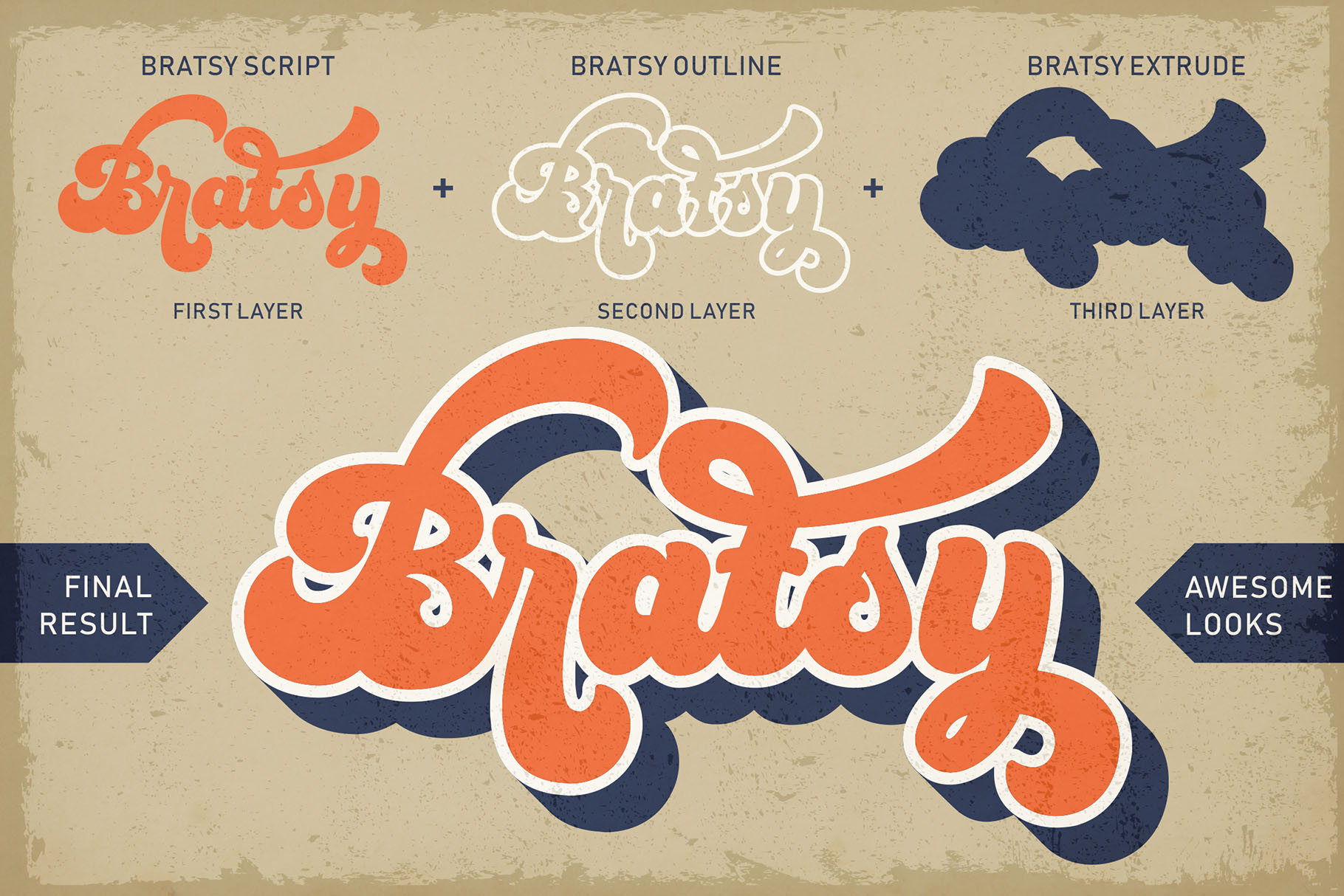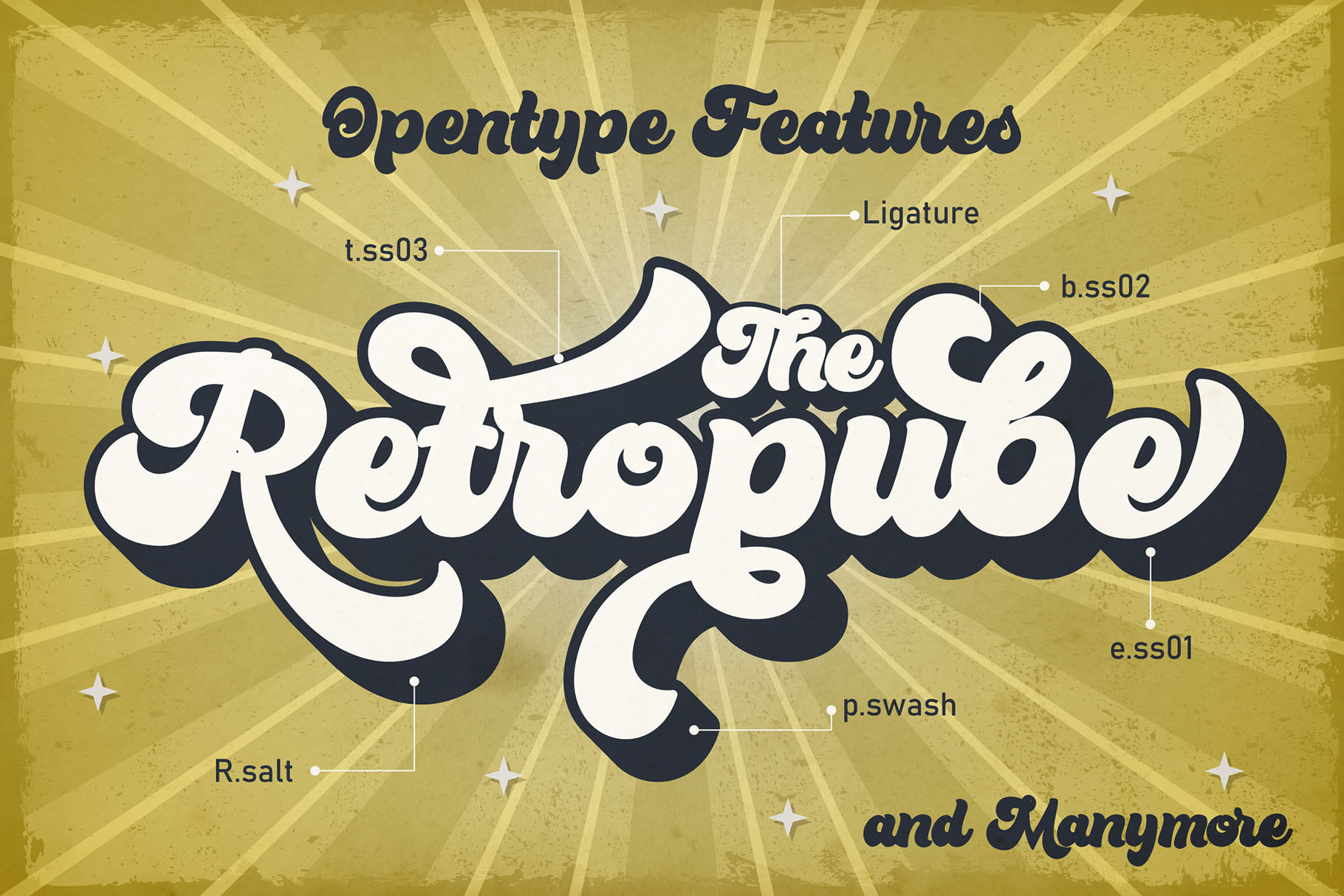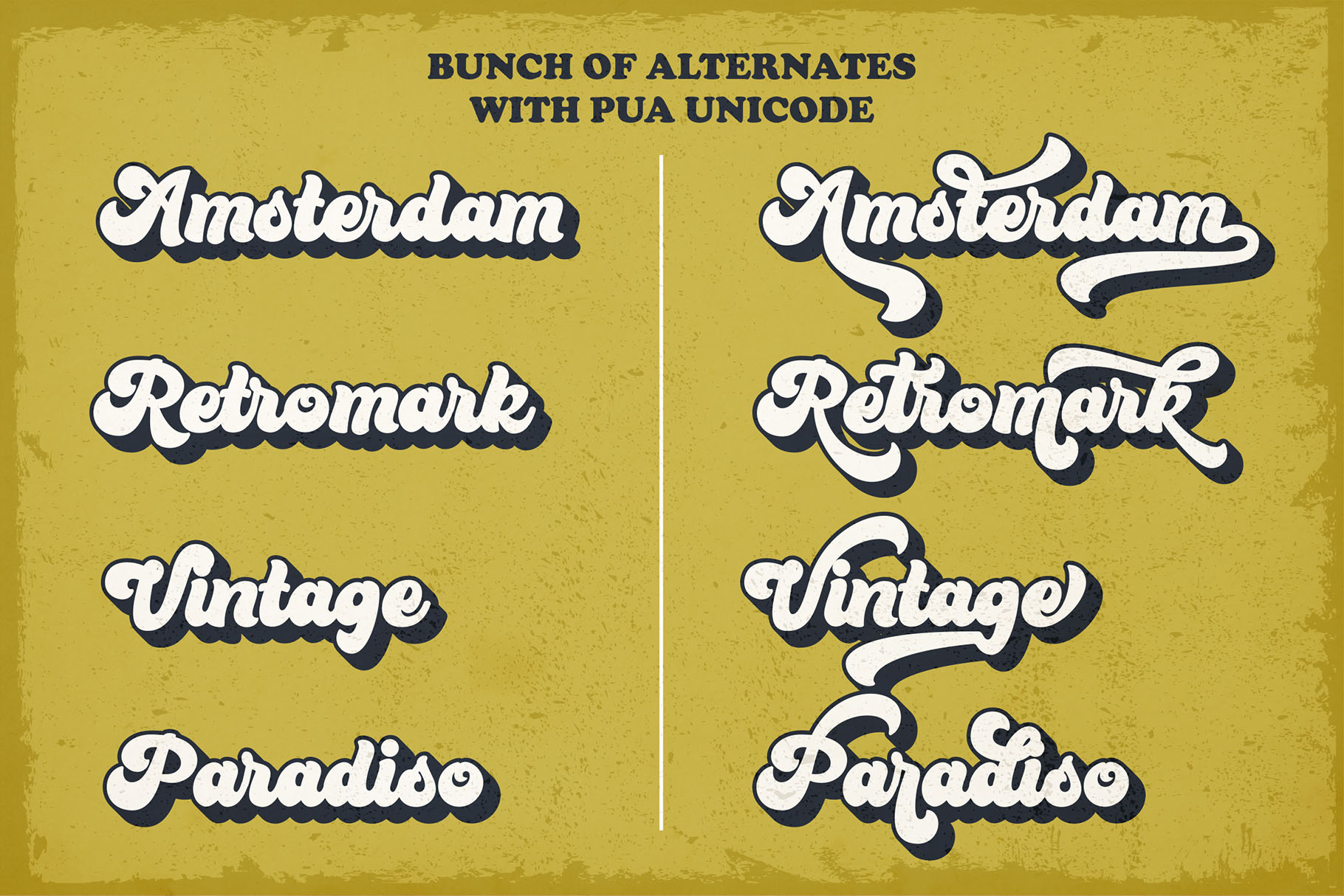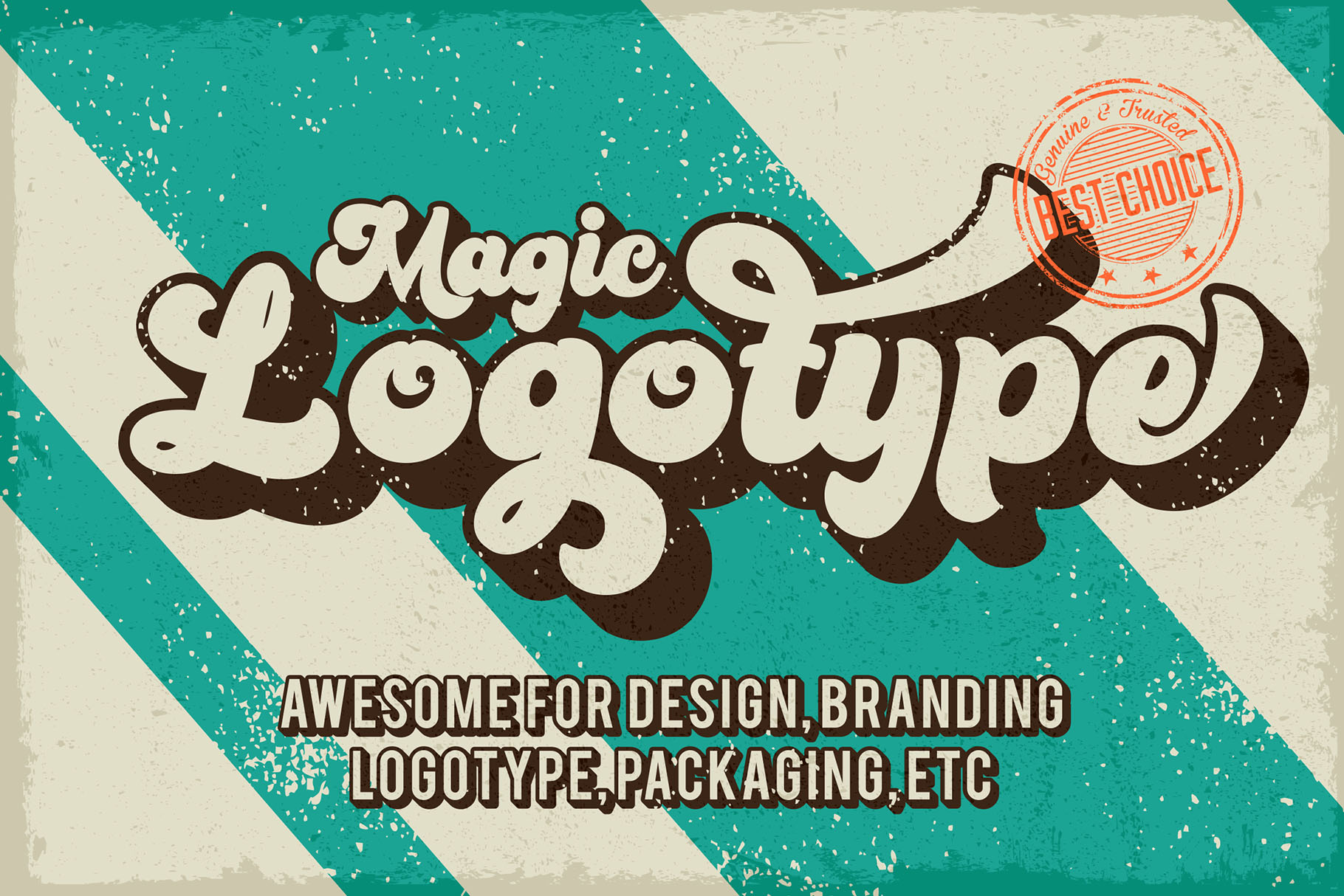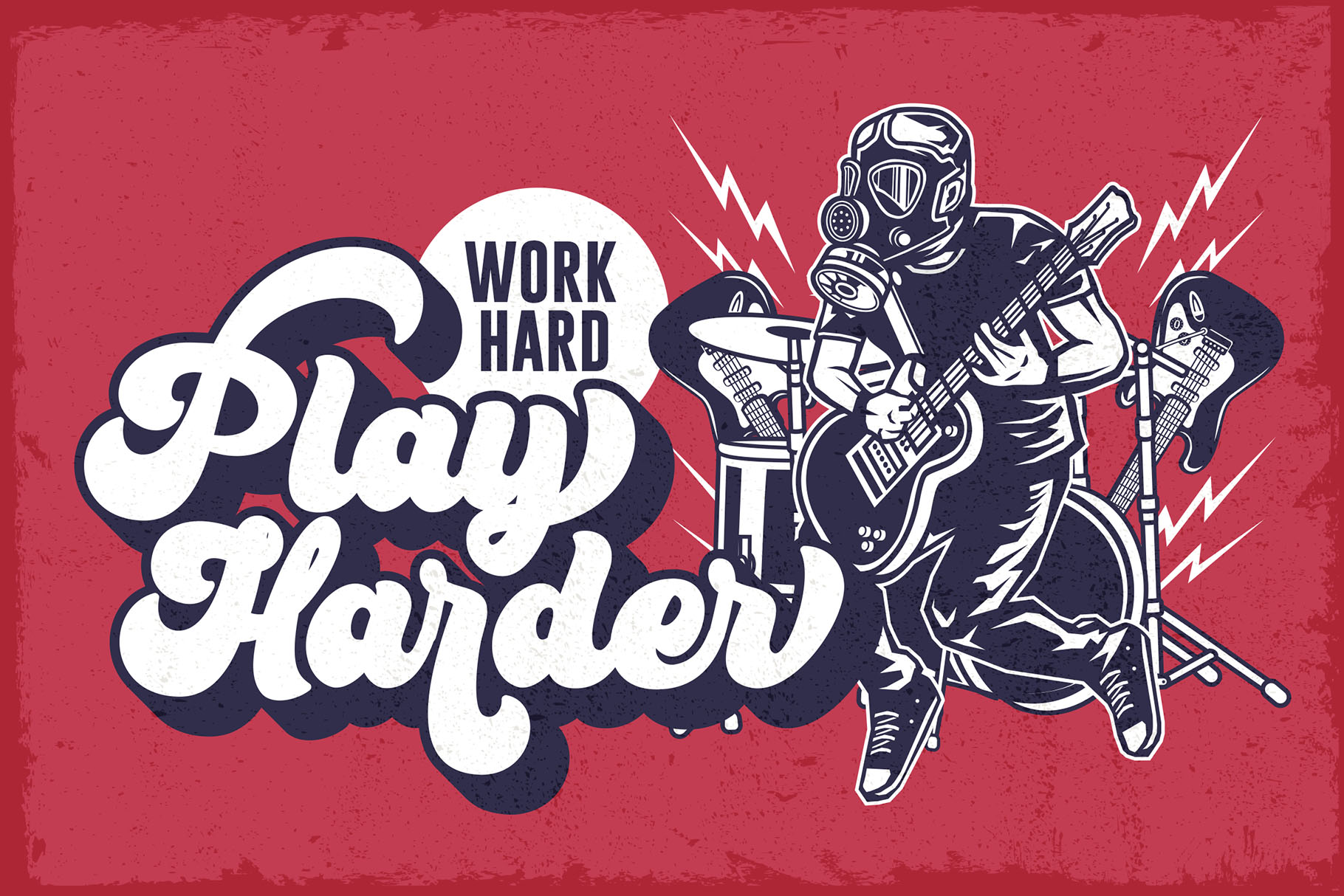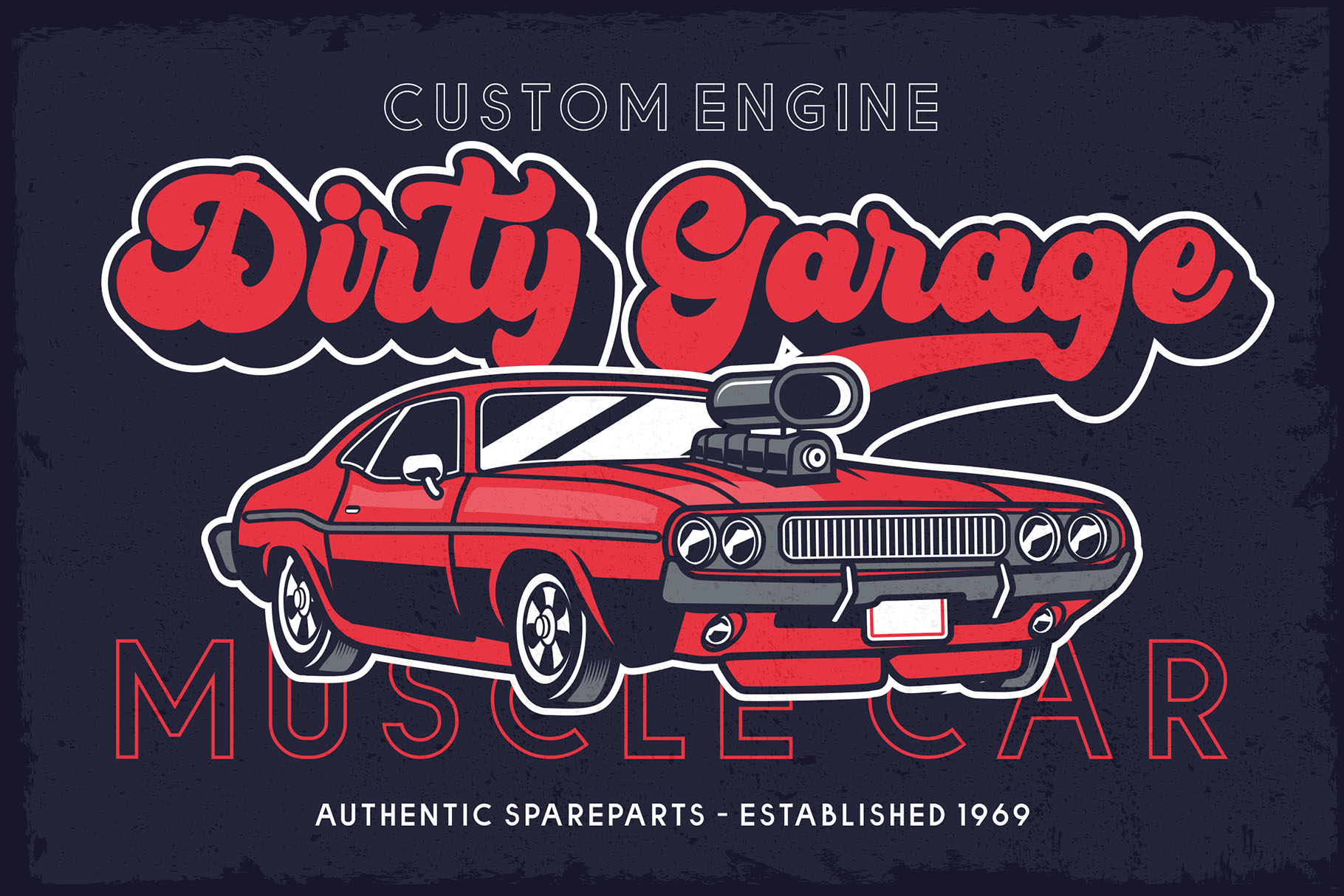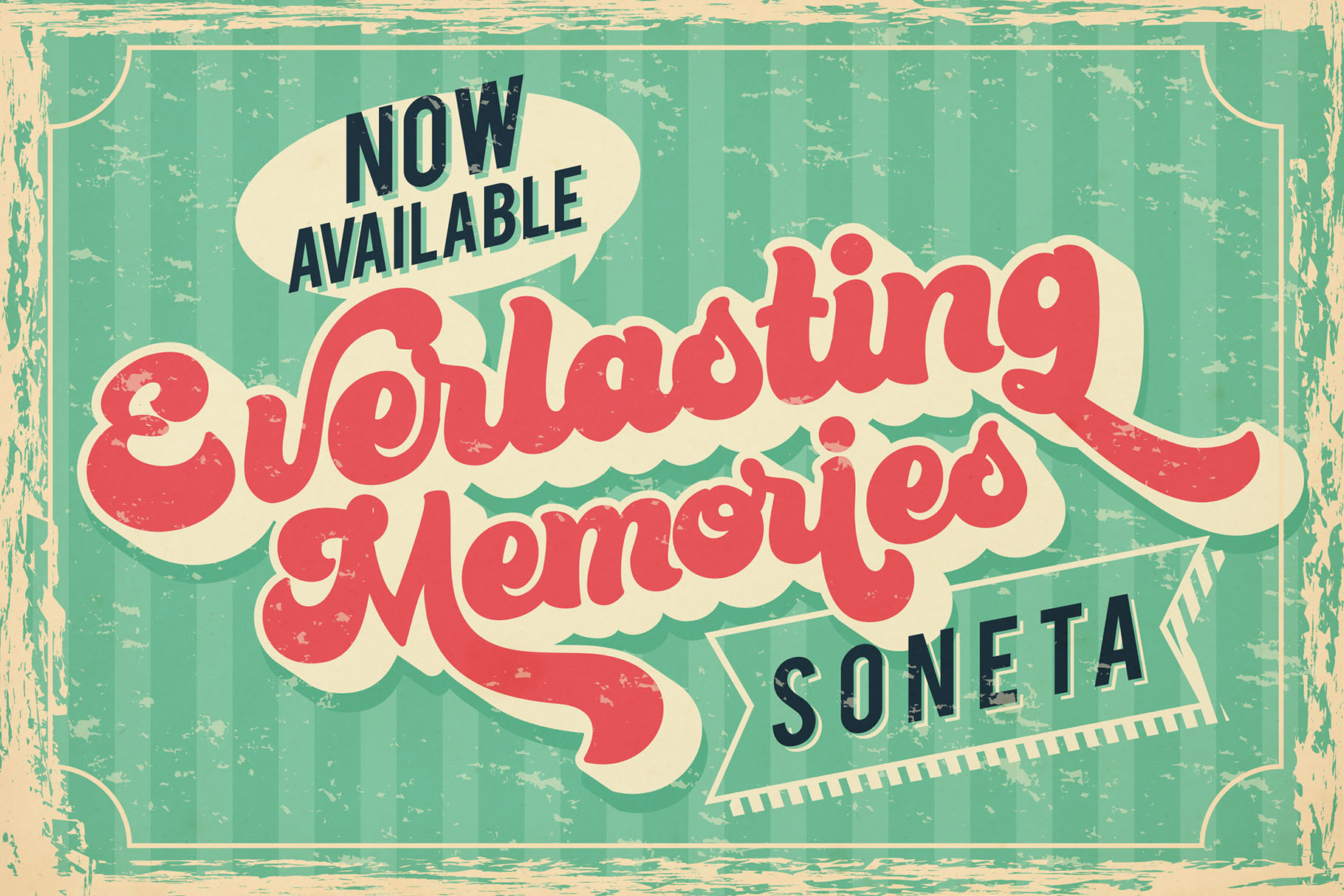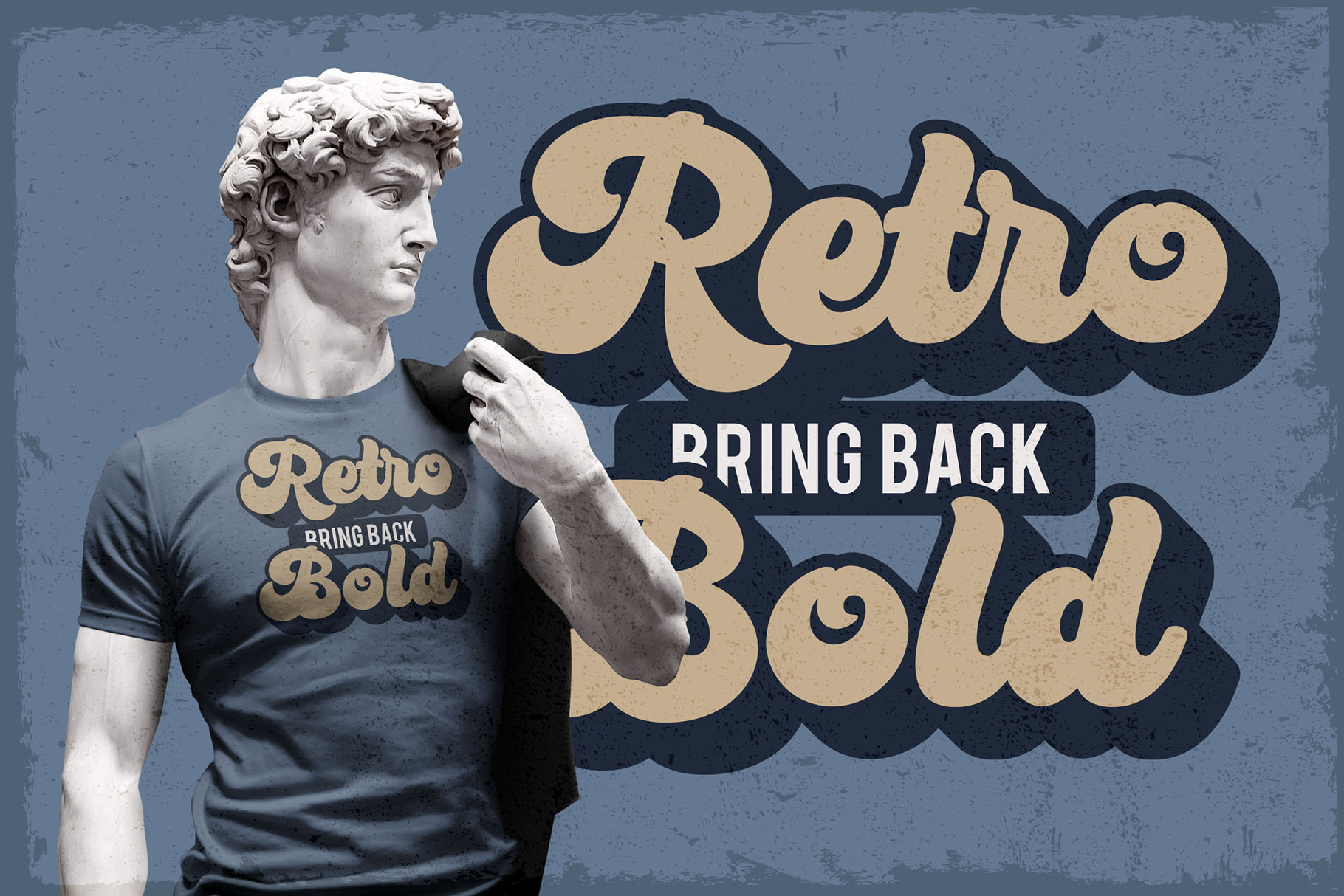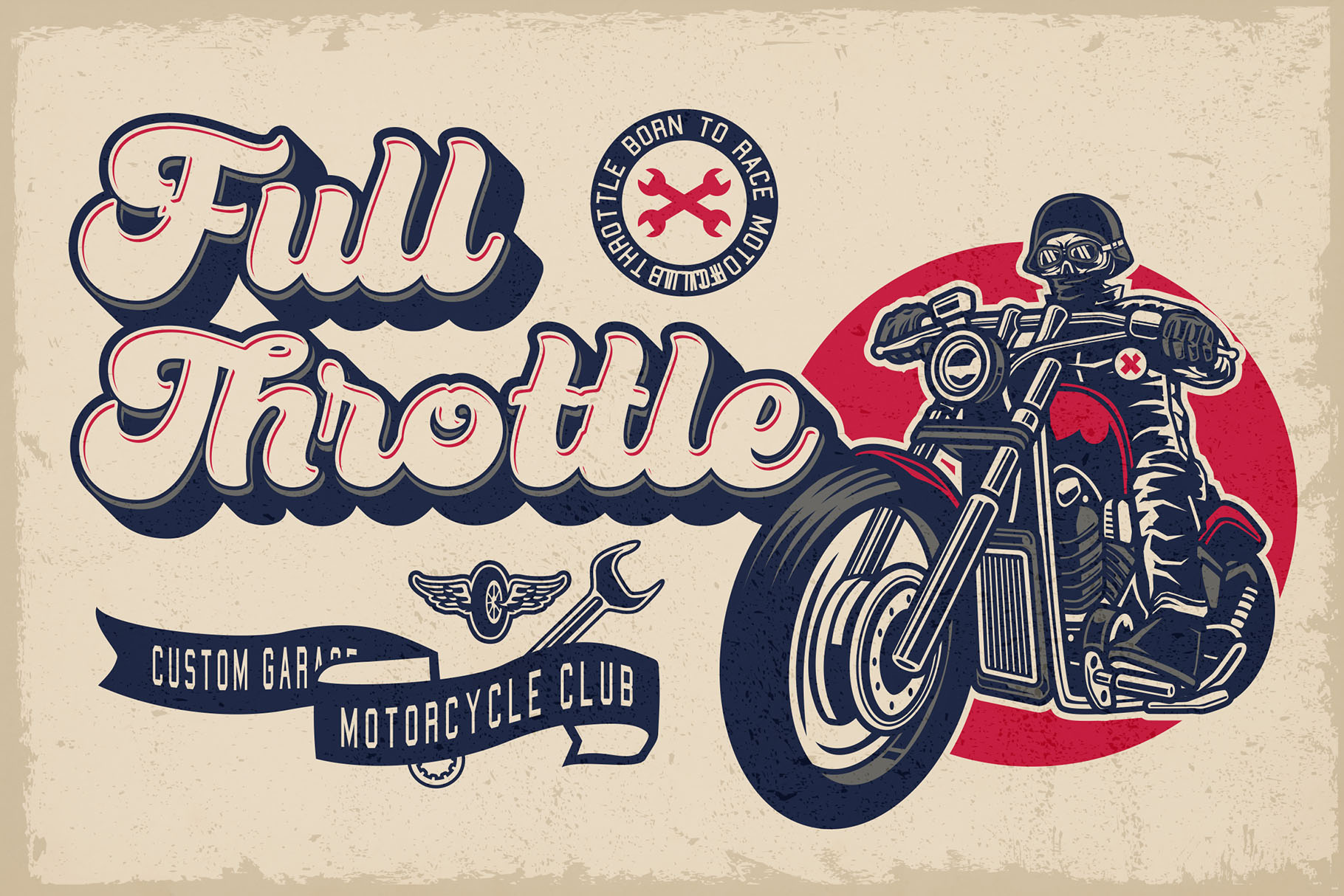
The Bratsy Script – Retro Bold Font for Vintage-Inspired Design
Typography is more than just letters; it’s how a brand speaks visually. The Bratsy Script – Retro Bold Font is crafted for designers who want their projects to radiate nostalgia, creativity, and bold personality. With stylistic alternates, contextual features, and swashes, this retro bold font is perfect for logos, posters, packaging, and editorial design that needs an authentic vintage touch.
From classic signage to playful branding, The Bratsy Script helps every project shine with bold strokes and retro energy. This is more than just a font—it’s a complete design toolkit.
Retro Bold Font with Modern Functionality
Unlike generic script fonts, The Bratsy Script is packed with features that enhance design freedom. As a retro bold font, it comes with ligatures, stylistic alternates, stylistic sets (01–09), contextual alternates, and decorative swashes. These tools allow you to customize each word into a unique piece of typography.
Its bold retro style draws inspiration from vintage advertising and signage but reimagined for modern design needs. This balance of classic character and usability makes The Bratsy Script stand out among retro bold fonts.
Key Features of The Bratsy Script – Retro Bold Font
- Character Support: Uppercase, Lowercase, Numbers, Punctuations
- Multilingual Support: Extended Latin coverage
- Ligatures: Smooth connections for authentic script flow
- Stylistic Alternates: Adds unique character variation
- Stylistic Sets (01–09): Flexible options for customization
- Contextual Alternates: Natural handwriting feel
- Swash: Elegant flourishes for decorative use
Why Designers Love The Bratsy Script
Designers appreciate fonts that offer both style and practicality. Here’s why The Bratsy Script – Retro Bold Font has become a favorite:
- Authentic Retro Vibe: Captures the charm of vintage bold script signage.
- Customizable Style: Alternates, swashes, and stylistic sets let you create unique looks.
- Versatility: Works for logos, posters, packaging, and digital graphics.
- Perfect Pairing Options: Pairs beautifully with sans serif or brush fonts for contrast.
The Bratsy Script for Logos and Branding
Brand identity thrives on fonts that feel both unique and memorable. The Bratsy Script, as a retro bold font, is excellent for bold logos that need vintage personality. Its swashes and alternates give brand wordmarks extra flair, making them recognizable and timeless.
Boutique shops, coffee brands, and lifestyle businesses can use The Bratsy Script to communicate personality and charm while still looking professional.
The Bratsy Script for Posters and Packaging
Posters and product packaging benefit from typography that attracts attention at first glance. This retro bold font thrives in large-scale displays. Its bold curves and vintage energy make it ideal for event posters, retro product lines, and playful packaging.
By combining standard glyphs with stylistic sets and swashes, designers can craft unique letter compositions that feel hand-lettered and full of life.
The Bratsy Script in Digital Media
In the digital space, authenticity and nostalgia resonate strongly with audiences. This is why The Bratsy Script works beautifully for social media templates, YouTube titles, Instagram stories, and blog headers.
Its retro bold font style delivers impact while its alternates and swashes allow for flexible branding across platforms. Designers can make each post feel unique without breaking consistency.
Why The Bratsy Script is the Retro Bold Font You Need
The demand for retro-inspired typography continues to grow. Designers need fonts that combine nostalgia with modern usability. The Bratsy Script delivers exactly that. Its ligatures, alternates, stylistic sets, and swashes provide endless creative flexibility, while its bold retro look guarantees impact.
The Bratsy Script – Retro Bold Font is more than a typeface—it’s a creative toolkit. With multiple styles (regular, outline, extrude), multilingual support, and advanced OpenType features, it allows designers to bring authentic vintage energy to any project.